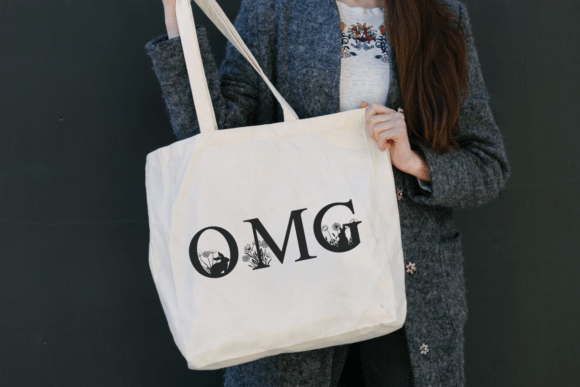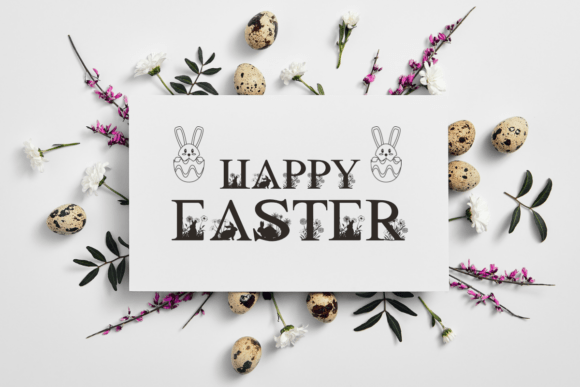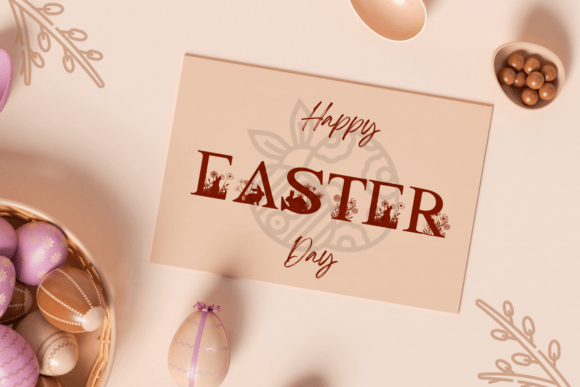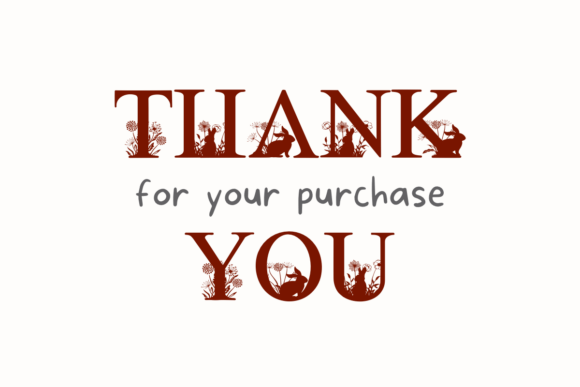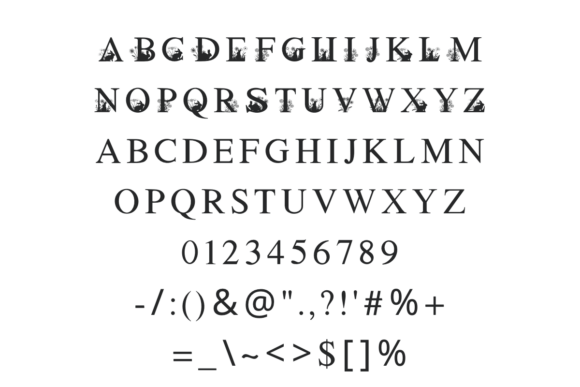
Easter Font: A Decorative Delight for Designers and Crafters
Easter is just around the corner, and with it comes the excitement of creating beautiful designs, crafts, and greeting cards. If you’re a designer or crafter looking for a unique and festive font to add a personal touch to your projects, look no further than the Easter Font. This decorative font is perfect for taking notes, writing a diary, or making greeting cards, but its versatility doesn’t stop there. You can use it for a wide range of designs, including banners, content, mugs, cards, shirts, stationery, social media posts, and more!
What is Easter Font?
The Easter Font is a decorative font designed to capture the spirit of Easter. Its playful and whimsical design makes it perfect for creating festive and fun designs. The font features elegant and curly lines, with a touch of springtime charm. Whether you’re creating a greeting card, a banner, or a social media post, the Easter Font is sure to add a personal and creative touch to your project.
Uses for Easter Font
The Easter Font is incredibly versatile, and its uses are endless. Here are some ideas to get you started:
- Greeting Cards: Create beautiful and unique Easter greeting cards for friends and family.
- Note-taking: Add a touch of Easter fun to your notes and journals.
- Diary Writing: Make your diary entries more exciting and personal with the Easter Font.
- Banners: Create eye-catching Easter banners for parties, events, or social media posts.
- Mugs and Water Bottles: Design personalized Easter-themed mugs and water bottles.
- Shirts and T-shirts: Create fun and festive Easter designs for shirts and t-shirts.
- Stationery: Add a touch of Easter charm to your stationery, including stickers, washi tape, and more.
- Social Media Posts: Make your Easter-themed social media posts stand out with the Easter Font.
Why Choose Easter Font?
So why choose the Easter Font for your designs and crafts? Here are just a few reasons:
- Unique and Festive: The Easter Font is a unique and festive font that’s sure to add a personal touch to your designs.
- Versatile: The Easter Font can be used for a wide range of designs, from greeting cards to social media posts.
- High-Quality: The Easter Font is a high-quality font that’s designed to produce clear and crisp results.
Tips for Using Easter Font
Here are some tips for using the Easter Font in your designs and crafts:
- Experiment with Colors: The Easter Font looks great in a range of colors, so don’t be afraid to experiment and find the perfect hue for your design.
- Mix and Match: Combine the Easter Font with other fonts and graphics to create a unique and eye-catching design.
- Keep it Simple: Don’t overcomplicate your design – sometimes, less is more. Keep your design simple and let the Easter Font shine.
- Have Fun: Most importantly, have fun! The Easter Font is a fun and creative way to add a personal touch to your designs and crafts.
The Easter Font is a decorative font that’s perfect for designers and crafters looking to add a personal touch to their Easter-themed designs and crafts. With its unique and festive design, versatility, and ease of use, the Easter Font is a must-have for anyone looking to create beautiful and fun Easter designs. So why not give it a try and see what amazing creations you can come up with?